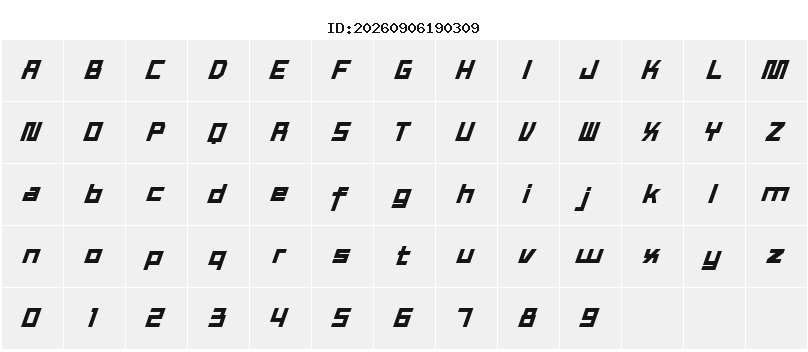
TEX WORK Preview
• Font Name: TEX WORK
• Font ID: TEX WORK
• Full Font Name: TEX WORK
About TEX WORK.ttf
TEX WORK.ttf is a modern, elegant sans-serif font designed for ultimate readability and visual harmony. Perfect for branding, headlines, web design, and print materials.